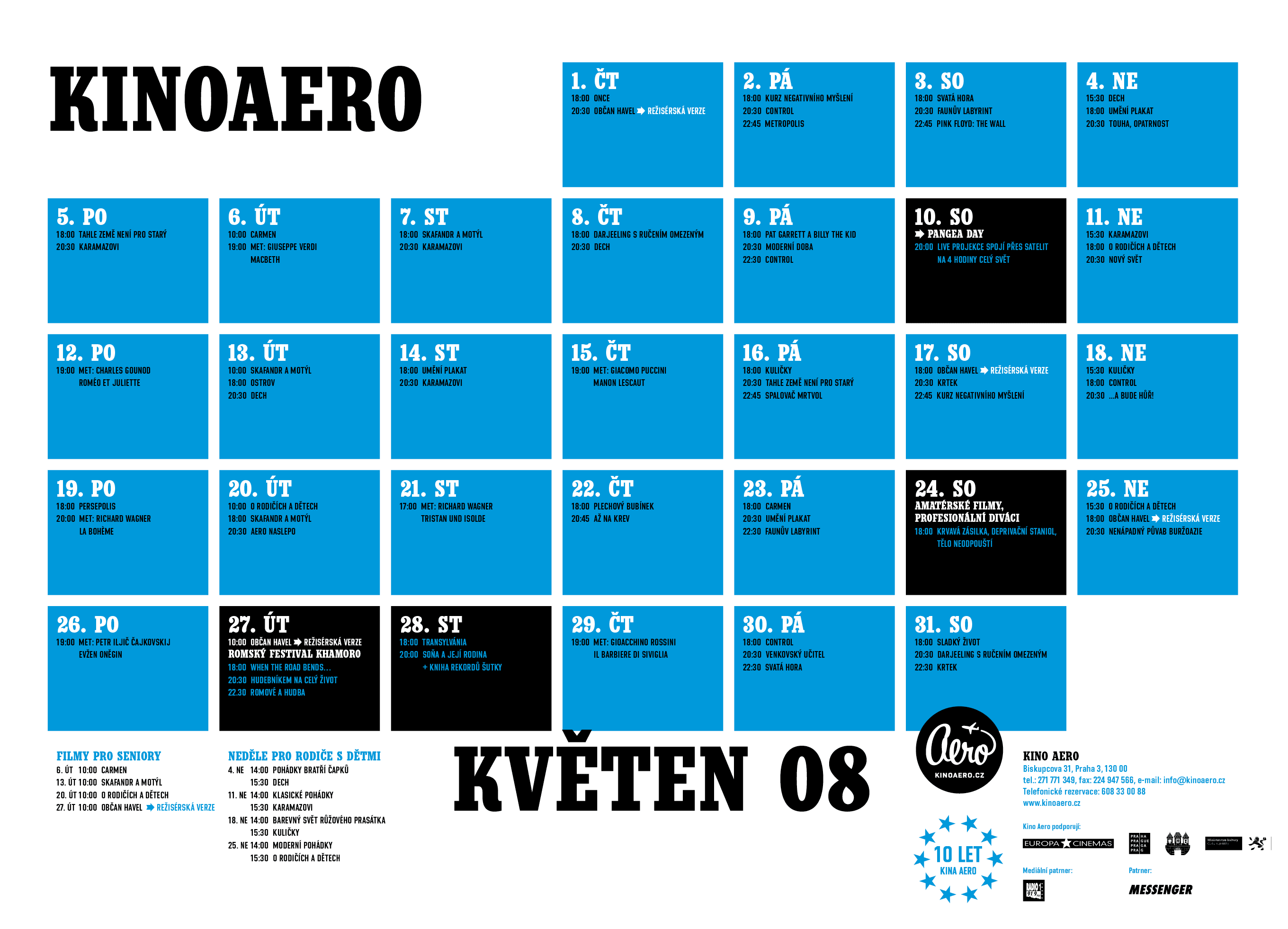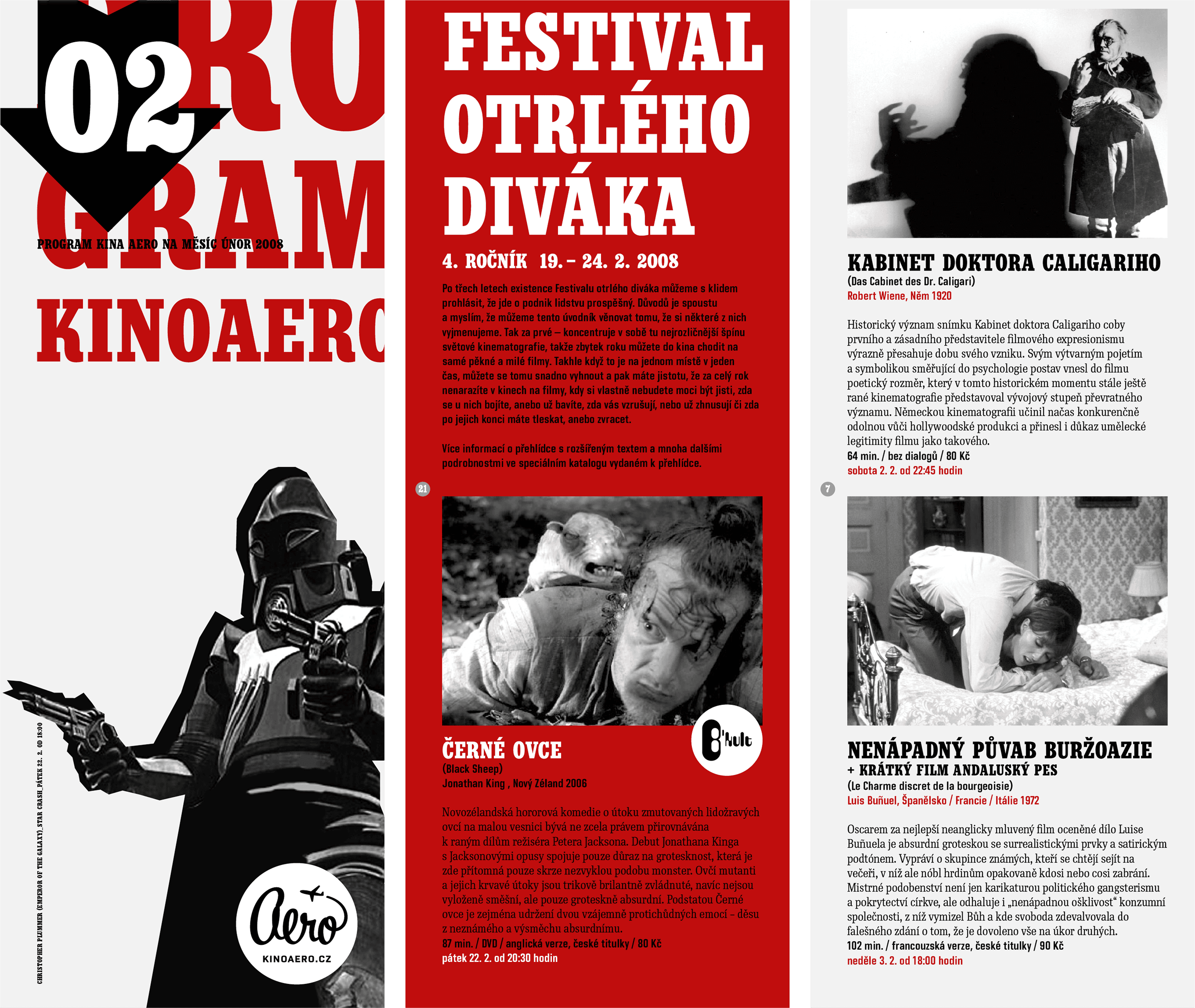
Forsage
The visual identity of Kino Aero is built around a distinctive all-caps display typeface inspired by condensed variations of Rockwell. Characteristic details — such as the “A” with its single-sided top serif or the curved legs of the “K” and “R” — appear not only in the cinema’s name itself, but are also repeatedly used throughout the typography, subtly reinforcing the brand’s recognizability.
Kino Aero is a single-screen Prague cinema focused on independent and arthouse film production, operating in one of the few historically preserved and still functioning cinema halls. The venue itself is a standalone functionalist building situated in the courtyard of a residential block in Prague’s Žižkov district, and was originally opened in 1933.